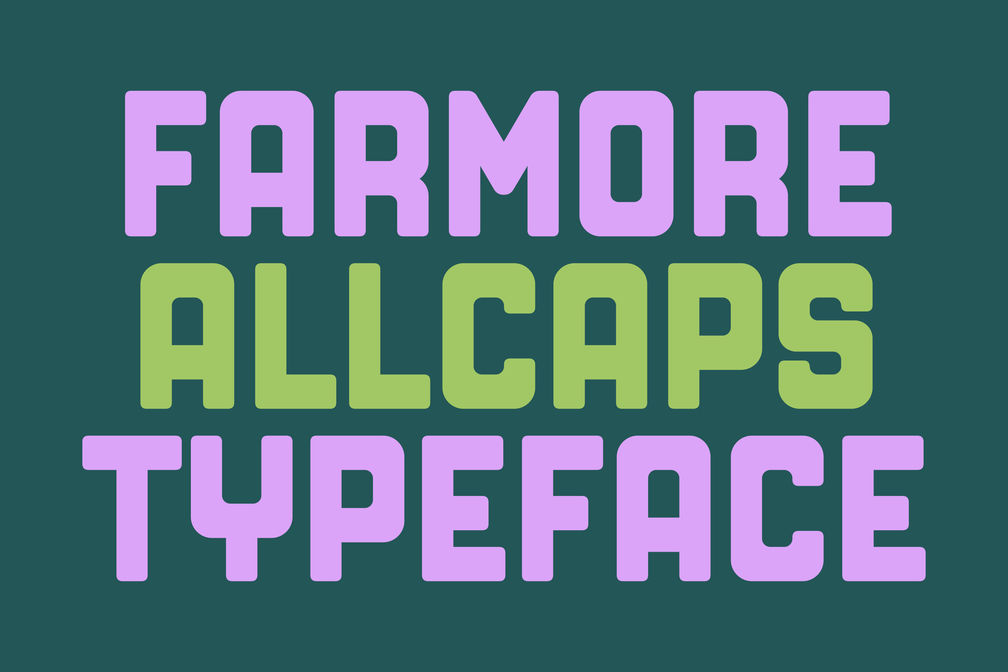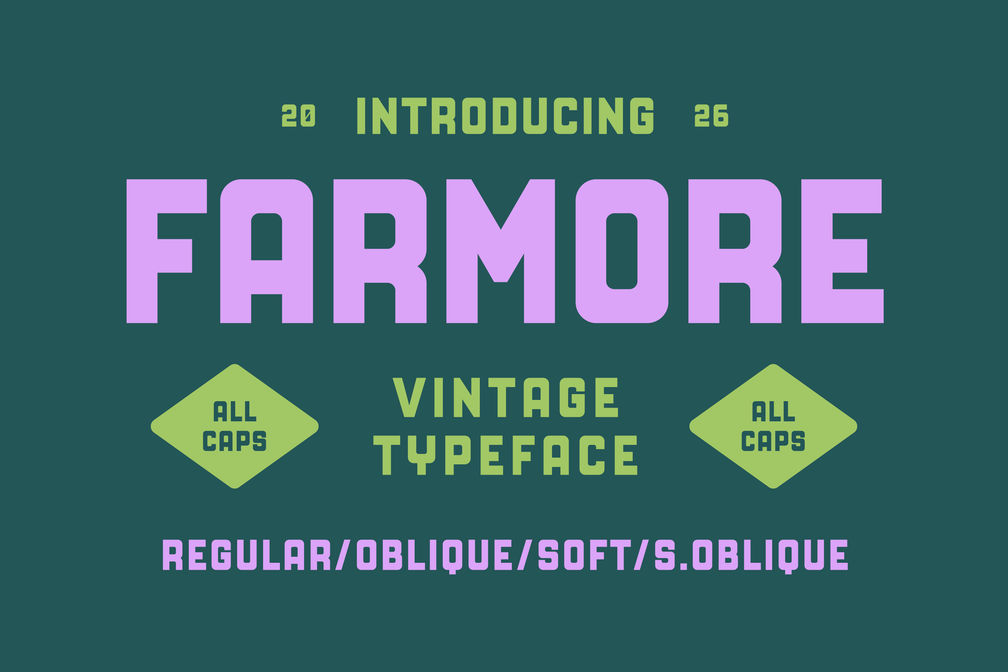
Farmore Vintage Display
Farmore Vintage Display is the quintessential typeface for those seeking to evoke a sense of nostalgia while making a bold statement. This sans serif display font is designed with an all-caps aesthetic, perfect for captivating logos, striking headlines, and eye-catching packaging. Its vintage charm is accentuated by a remarkable set of over 350 glyphs, allowing for diverse typographic expressions that cater to various design needs. Whether you’re crafting a retro-inspired poster or a branded product label, Farmore Vintage Display provides the flexibility and uniqueness to elevate your creative projects.
The font’s thoughtful features, including ligatures, stylistic alternates, and decorative swashes, add an artistic flair that can transform ordinary text into extraordinary visual art. Available in multiple file formats such as TTF, OTF, WOFF, and WOFF2, Farmore Vintage Display ensures compatibility across various design platforms, making it an ideal choice for both professional designers and casual creators alike. Embrace the vintage vibe and let your designs stand out with this exceptional typeface, designed to bring character and charisma to every word.
• Farmore 4 Styles (Regular, Oblique, Soft, Oblique Soft)
• All Caps Character
• Alternate Styles
• Punctuation
• Number
• Multilingual Support